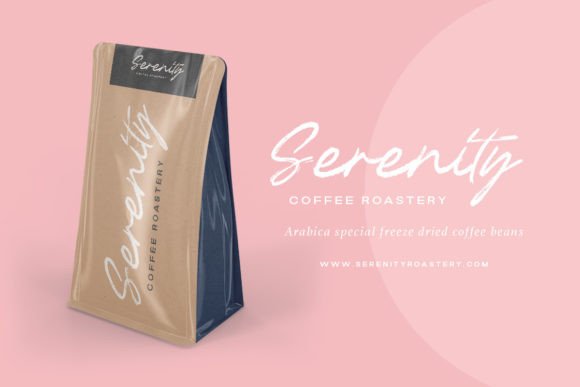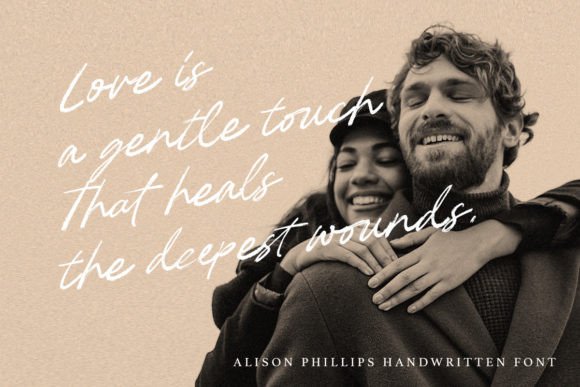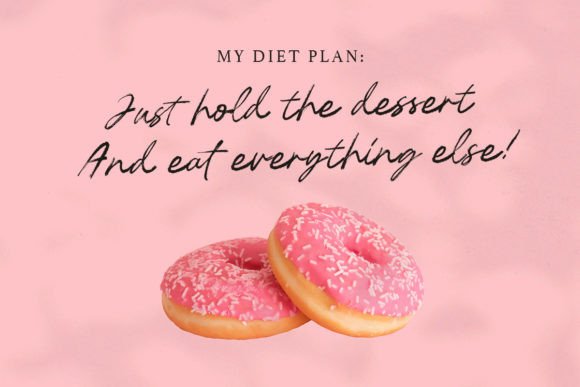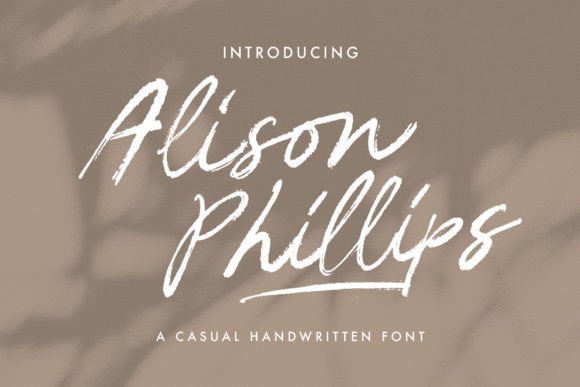
Introducing Alison Phillips: The Casual Handwritten Font That Brings Personality to Your Designs
Have you ever been working on a project, pouring your heart and soul into it, only to realize that something’s missing? You’re not alone! I’ve been there too. Recently, I was tasked with creating a branding package for a small business, and I was struggling to find the perfect font. That’s when I stumbled upon Alison Phillips, a casual handwritten font that completely transformed my design. In this article, I’ll share my experience with this beautiful font, its features, and how to make the most of it in your designs.
A Design Moment of Frustration and Relief
I was working on a branding project for a boutique craft store, and I needed a font that would capture the essence of handmade, unique products. I tried several fonts, but none seemed to fit the bill. That’s when I discovered Alison Phillips. This font has a textured brush look that exudes an organic and intimate feel, making it perfect for designs that require a personal touch.
An Honest Review of Alison Phillips
- 💯 The textured brush look gives designs a unique, handmade feel.
- ✅ Easy to read, even in smaller sizes.
- 🎨 Perfect for a variety of design projects, from branding to invitations.
- 🌈 The font’s organic feel makes it ideal for designs that require a personal touch.
While Alison Phillips is an amazing font, there are a few things to keep in mind:
- 🤔 Some letters may appear a bit irregular or imperfect, which can be a minor distraction for some users.
- ⚠️ The font may not be suitable for very formal or corporate designs, as it has a distinctly casual feel.
The Story Behind Alison Phillips
Alison Phillips was designed with the intention of creating a font that would bring a touch of authenticity and personality to designs. The designer aimed to create a font that would evoke a sense of uniqueness and character, making it perfect for designs that require a personal touch. While the real story behind the font’s creation may be unknown, it’s clear that Alison Phillips has become a beloved font among designers and crafters.
| Font Name | Alison Phillips Casual Handwritten Font |
| Author | letterhend |
Q: What type of designs is Alison Phillips best suited for?
A: Alison Phillips is perfect for designs that require a personal touch, such as branding, invitations, and crafts.
Q: Is Alison Phillips a difficult font to read?
A: No, Alison Phillips is easy to read, even in smaller sizes.